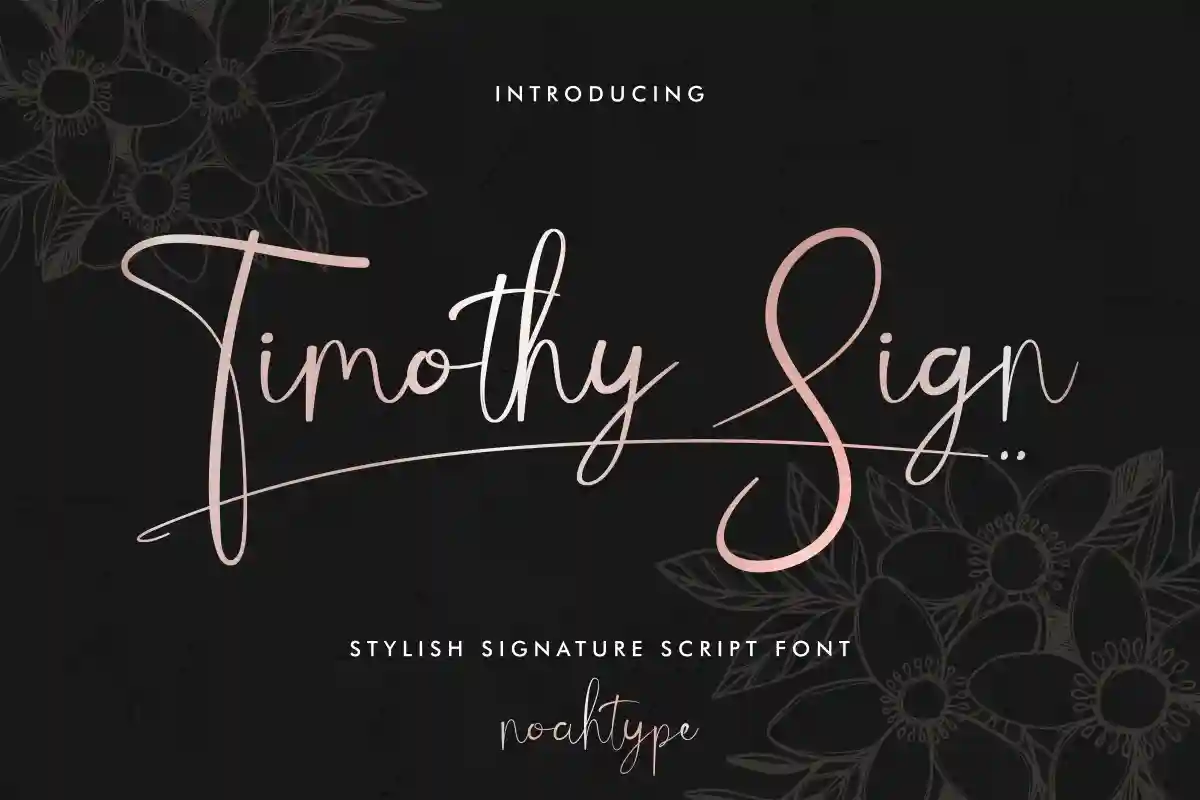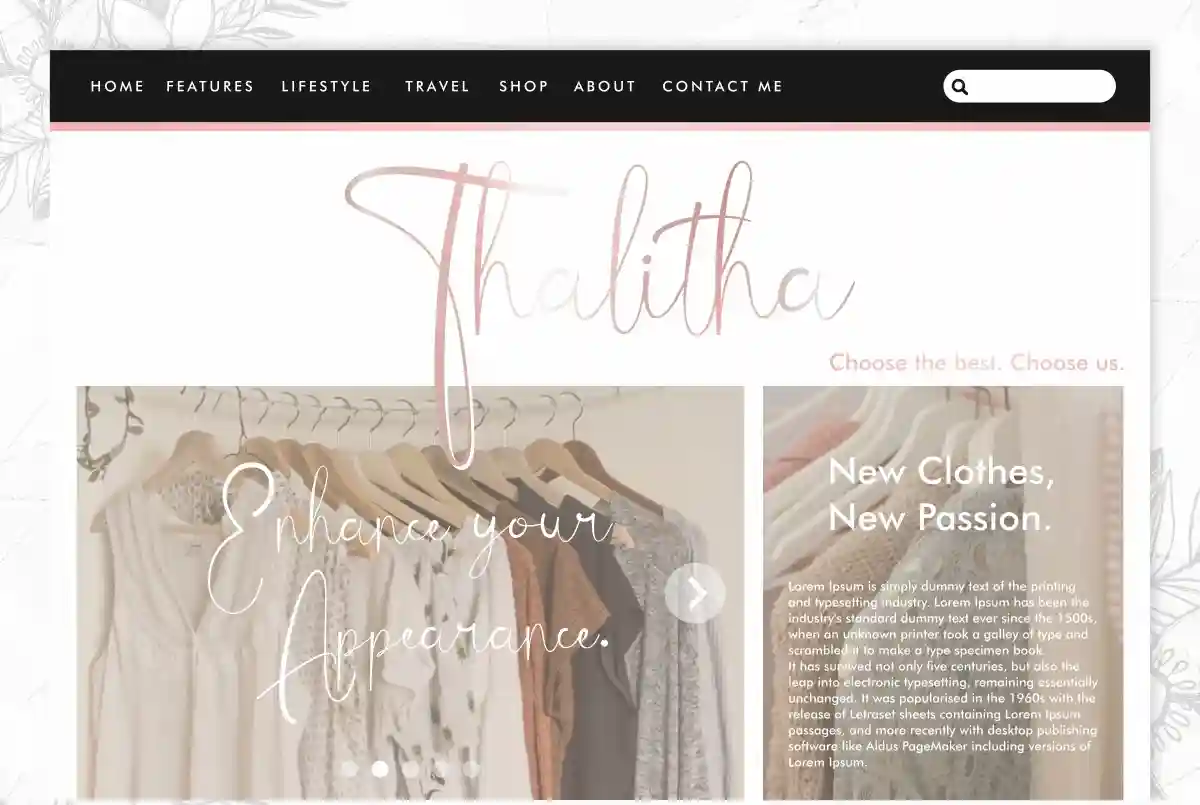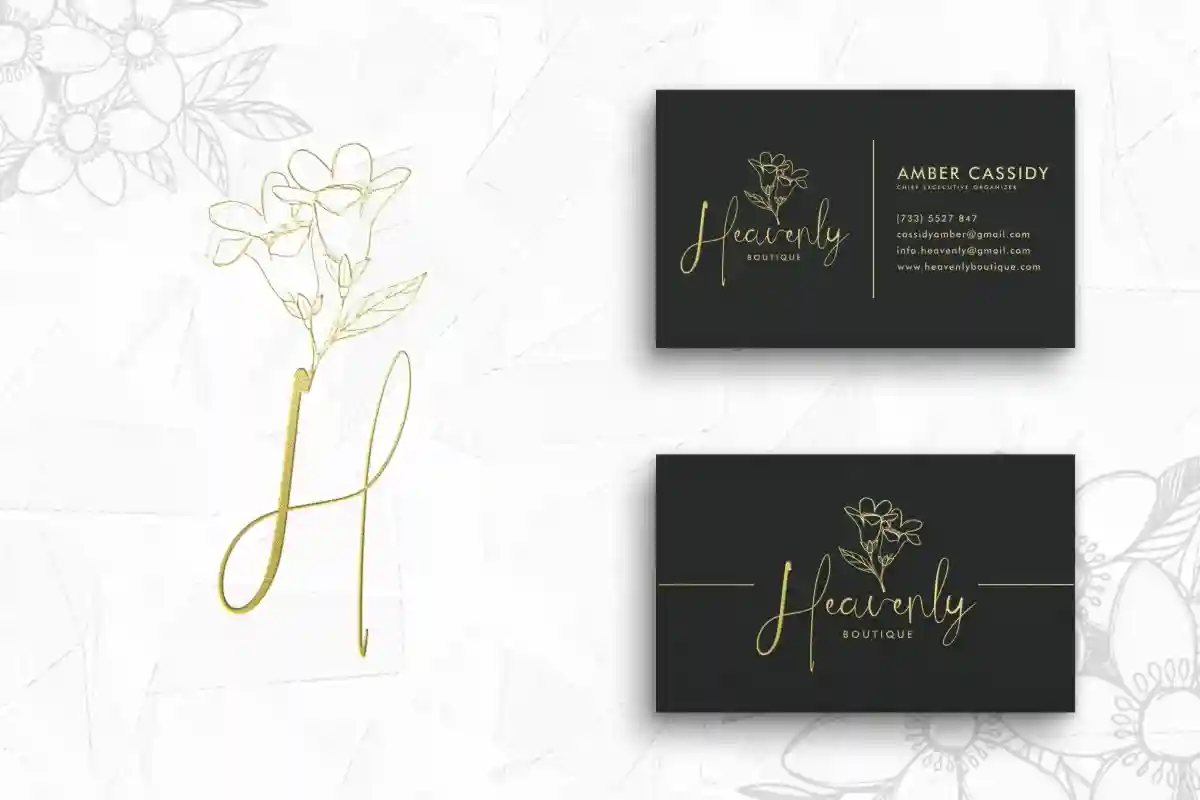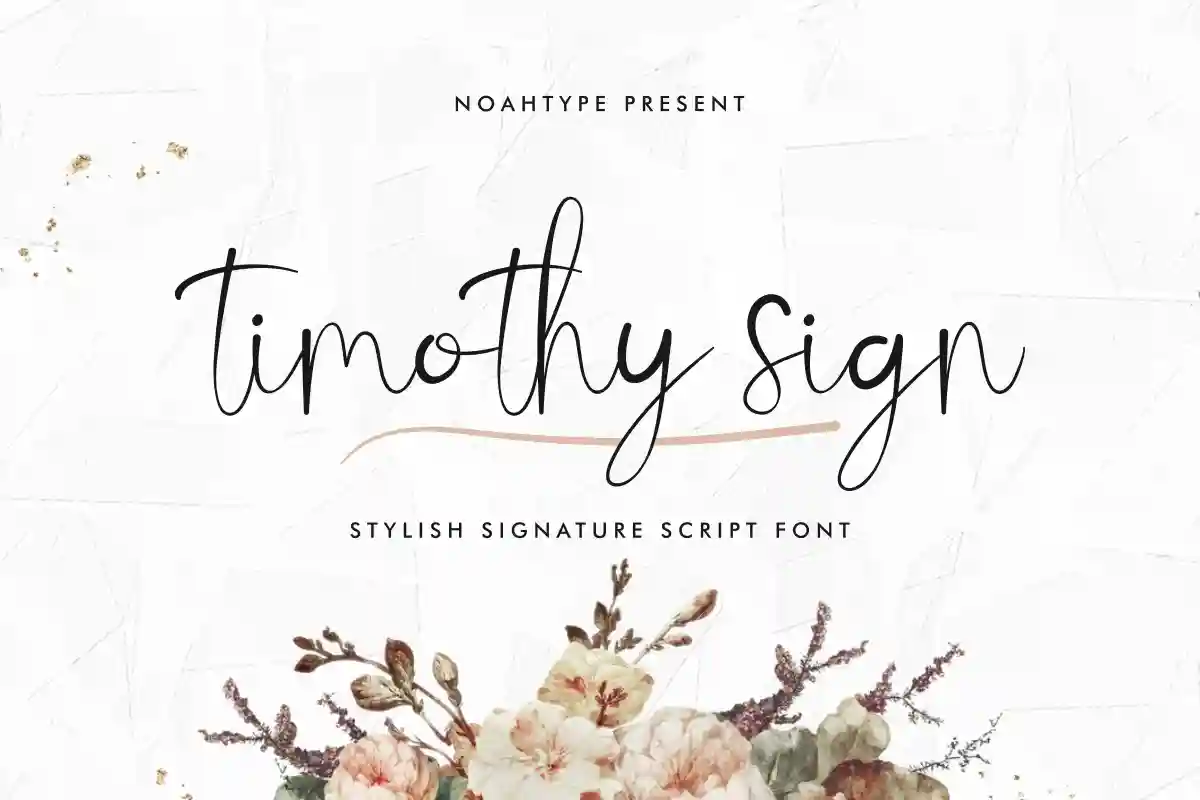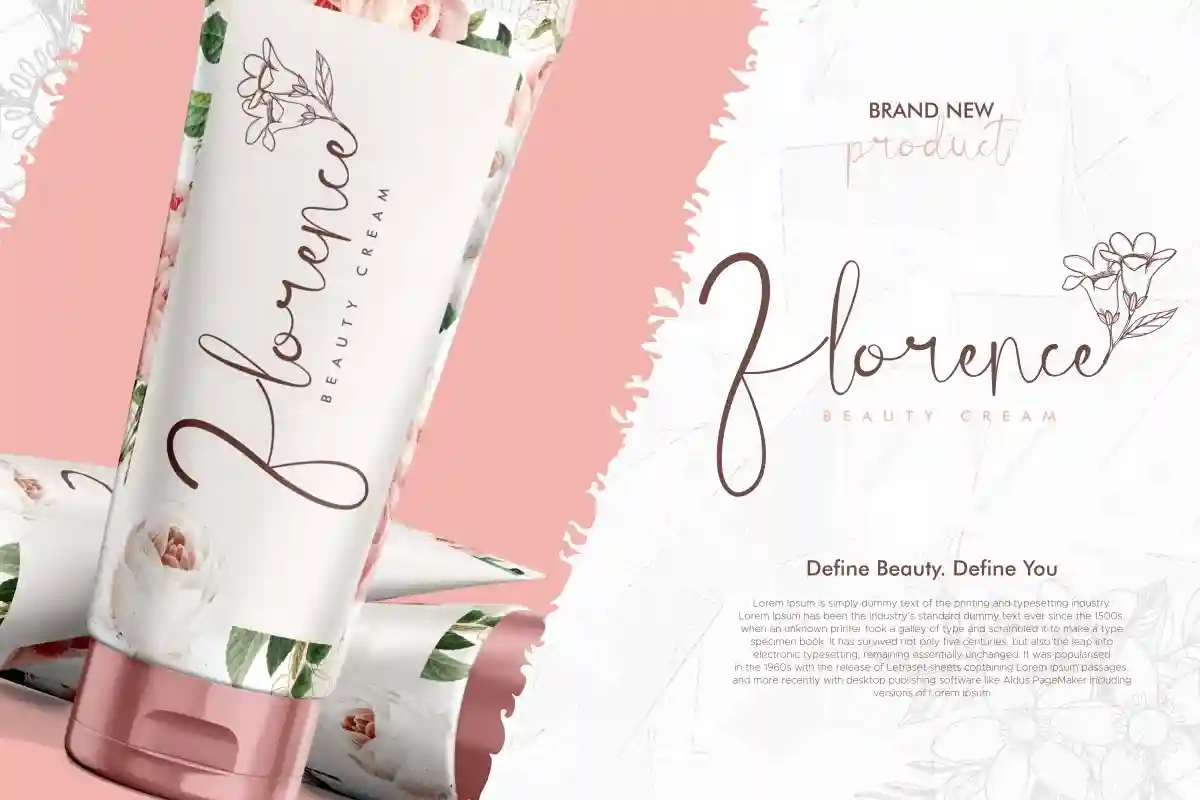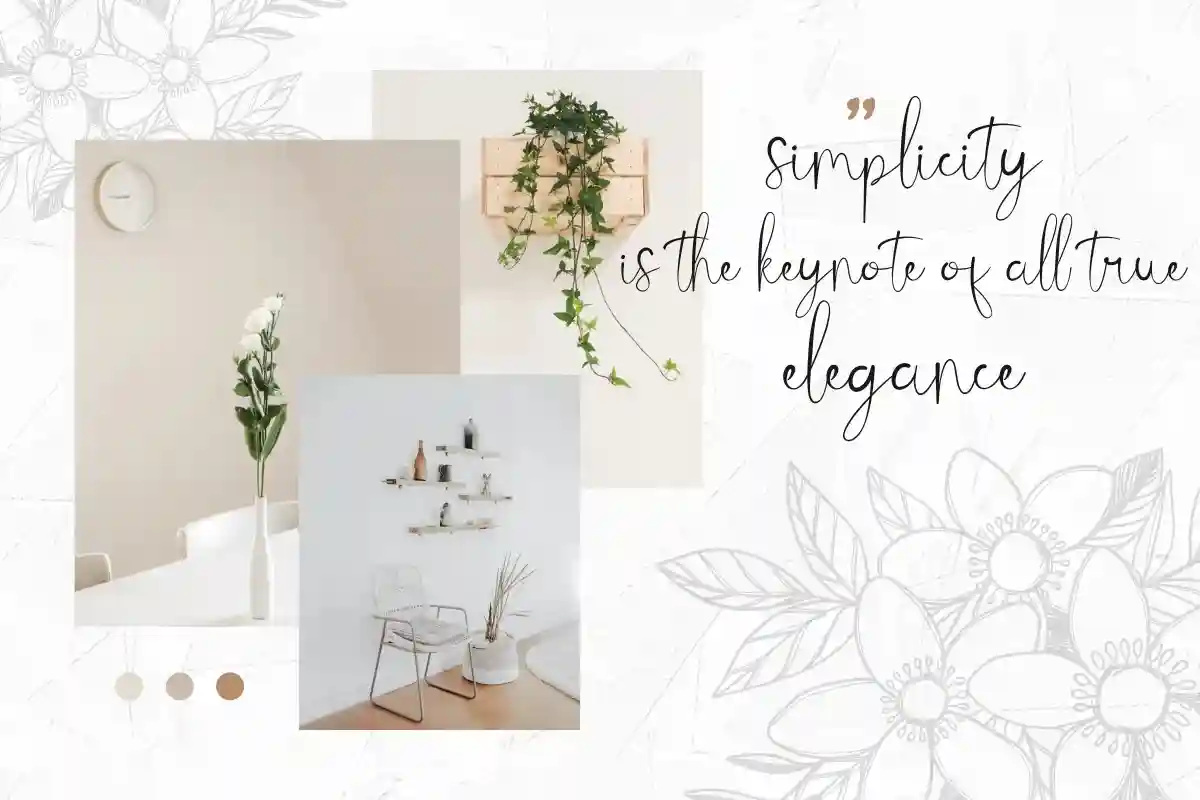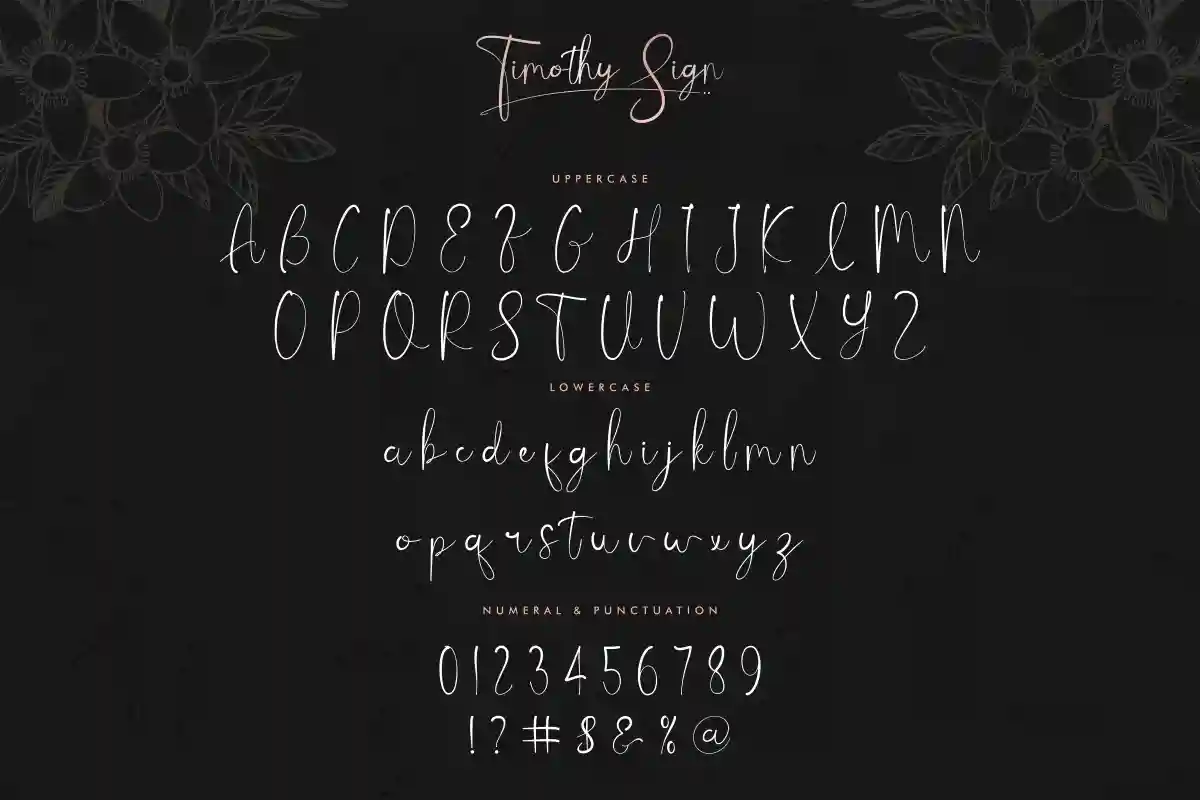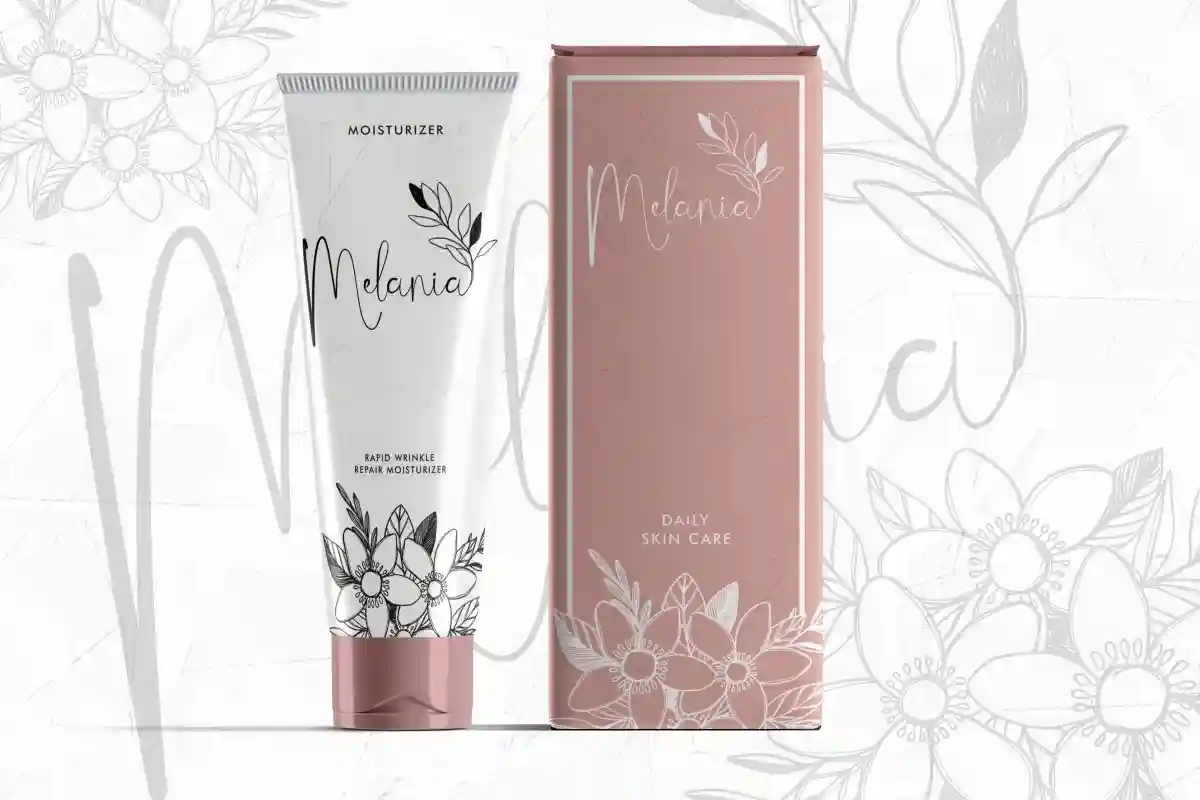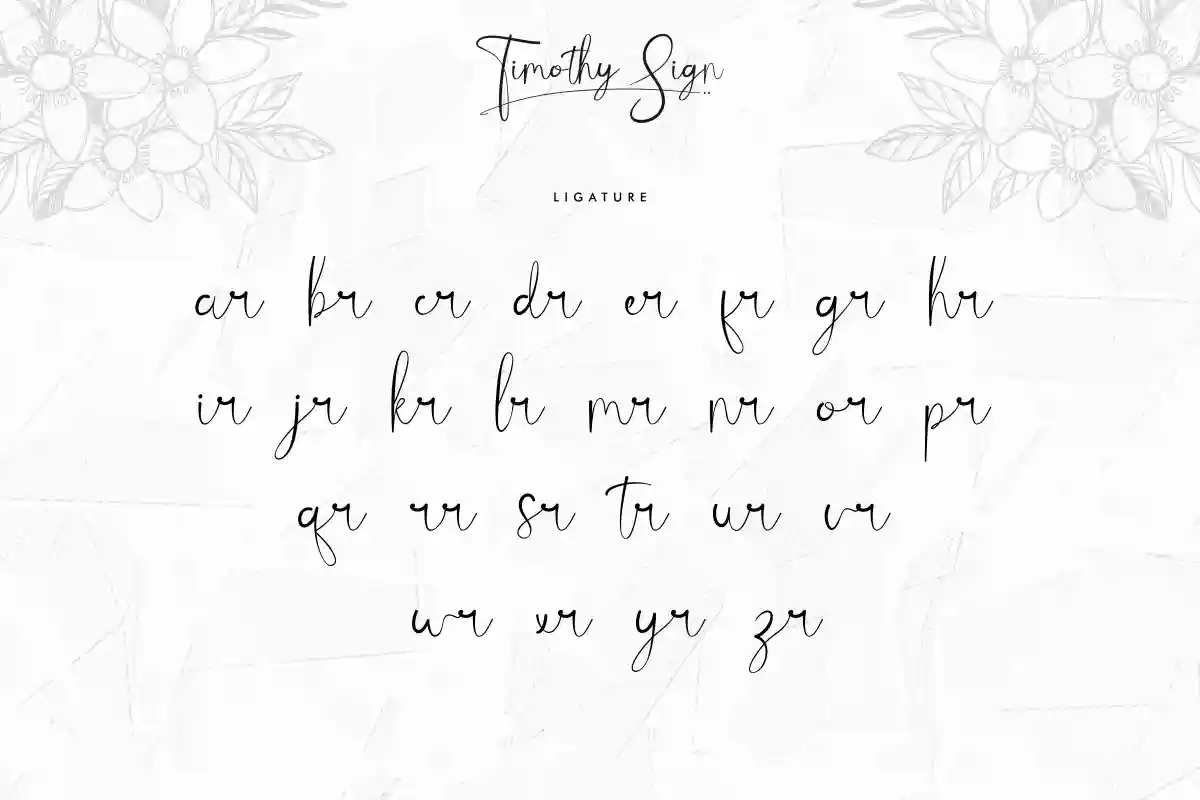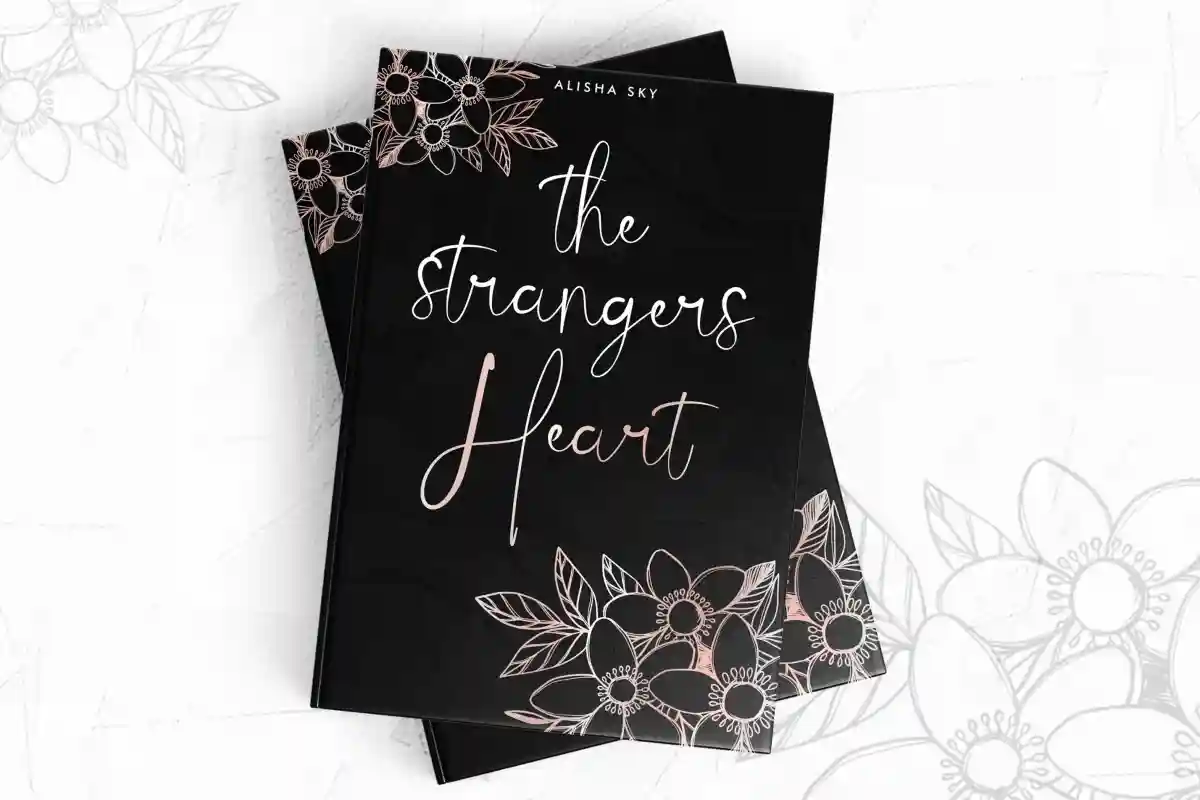
Timothy Sign is a classic signature handwriting font with modern and elegant characters. This font is crafted carefully in every its single scratch, created to look as close to a natural handwritten script so that it can create the perfect combination on each glyph. When we make this font, we really want to create a touch that is so free-flowing that it gives a natural impression on its use later. This awesome script is for anyone who are needing of elegance and stylish for their designs.
Timothy Sign Font includes full set of Uppercase and Lowercase Basic Characters, Numerals and Punctuation. Also it contains ligatures and alternates characters to perfectly make natural handwriting look that add more beautiful and aesthetic fonts to perfect your extraordinary project. Timothy Sign Font will be awesome for professional, photography, wedding, engagement, branding, invitations, florist, hair stylish, makeup artist, event organizer, movie, music, festival, promotions, social media etc
Elegant and versatile design for any project
Smooth curves and consistent letterforms for easy readability
Perfect for both digital and print use
Complete set of uppercase, lowercase, numbers, and punctuation
Using Timothy Sign Handwriting Font can instantly elevate your design projects. Its modern yet natural handwritten style allows you to connect with your audience on a deeper level. Whether you’re a professional designer or a hobbyist, this font is a must-have in your collection.
Timothy Sign Font will be great for photo logo, professional, branding, logotype, social media post, poster, invitation, watermark, lettering and many more